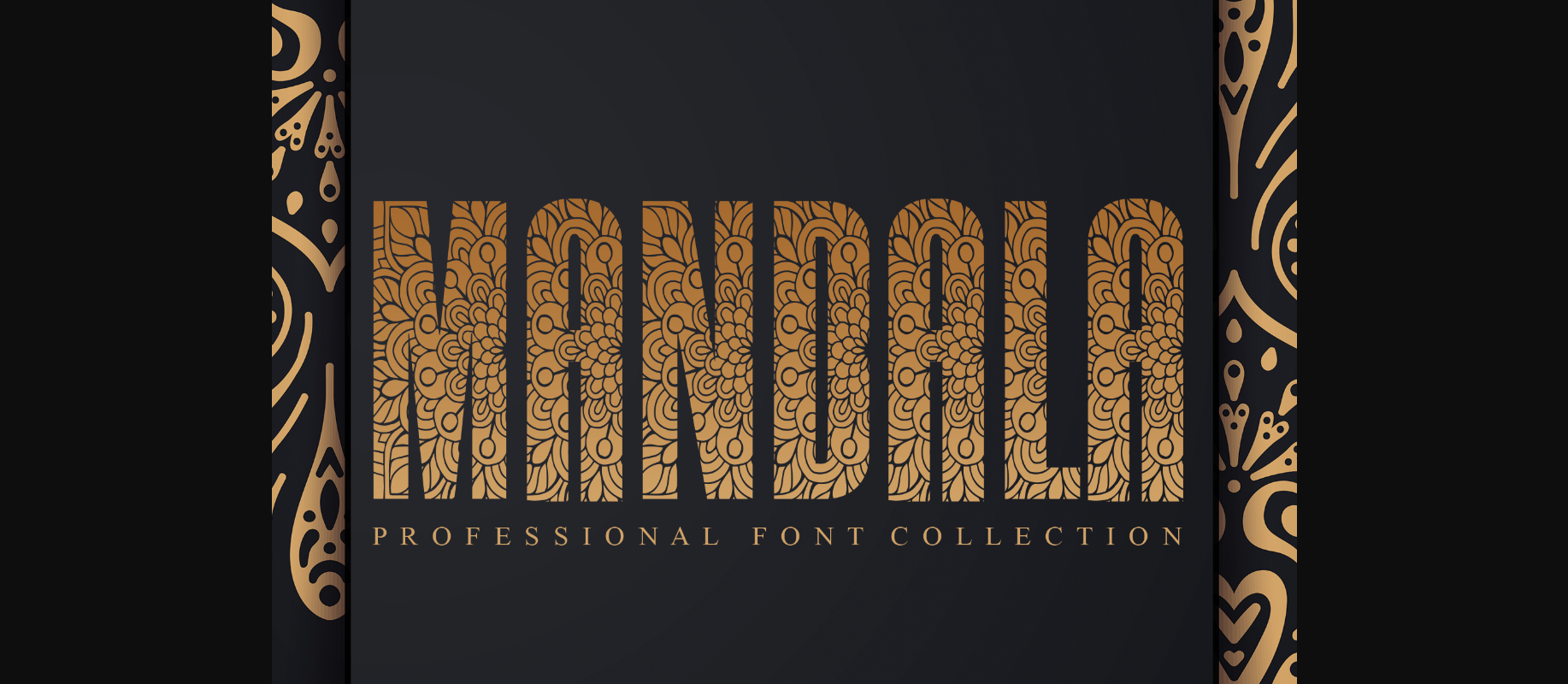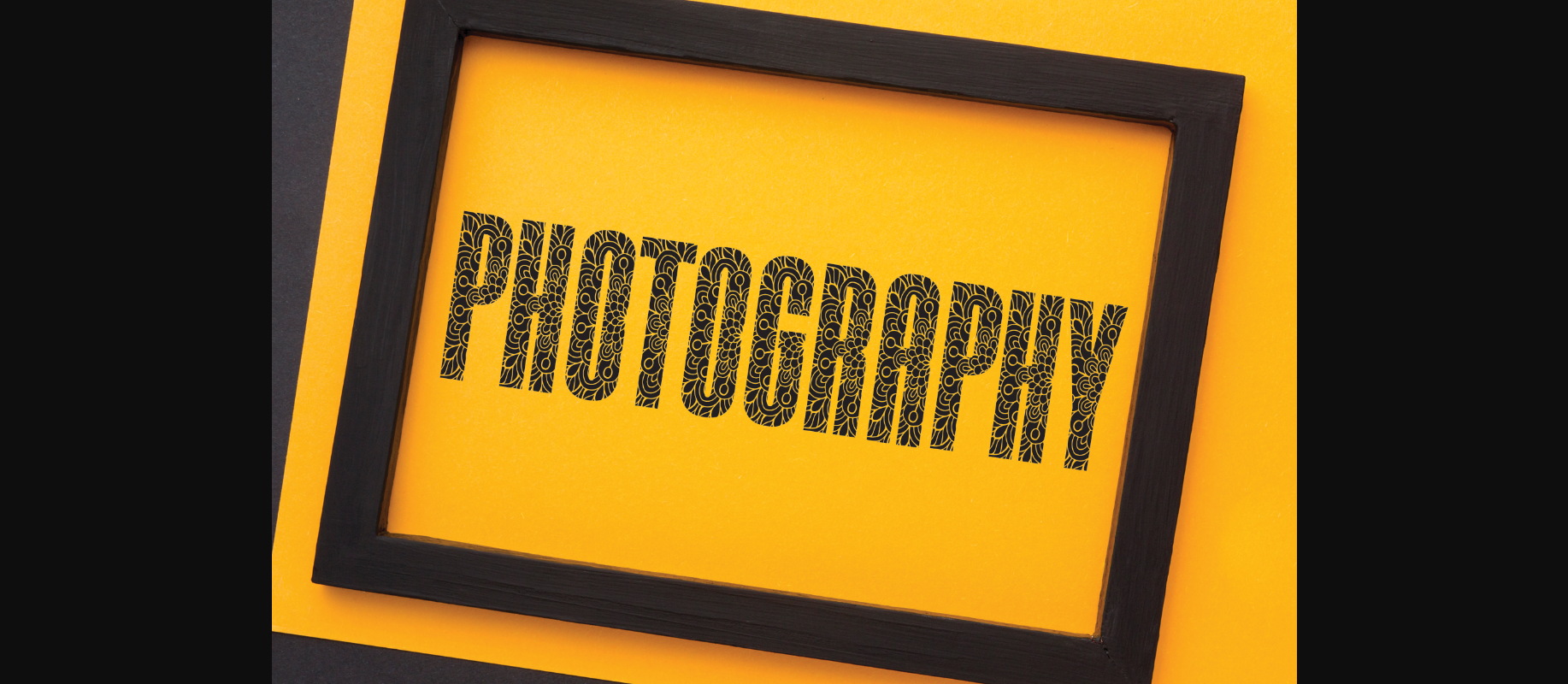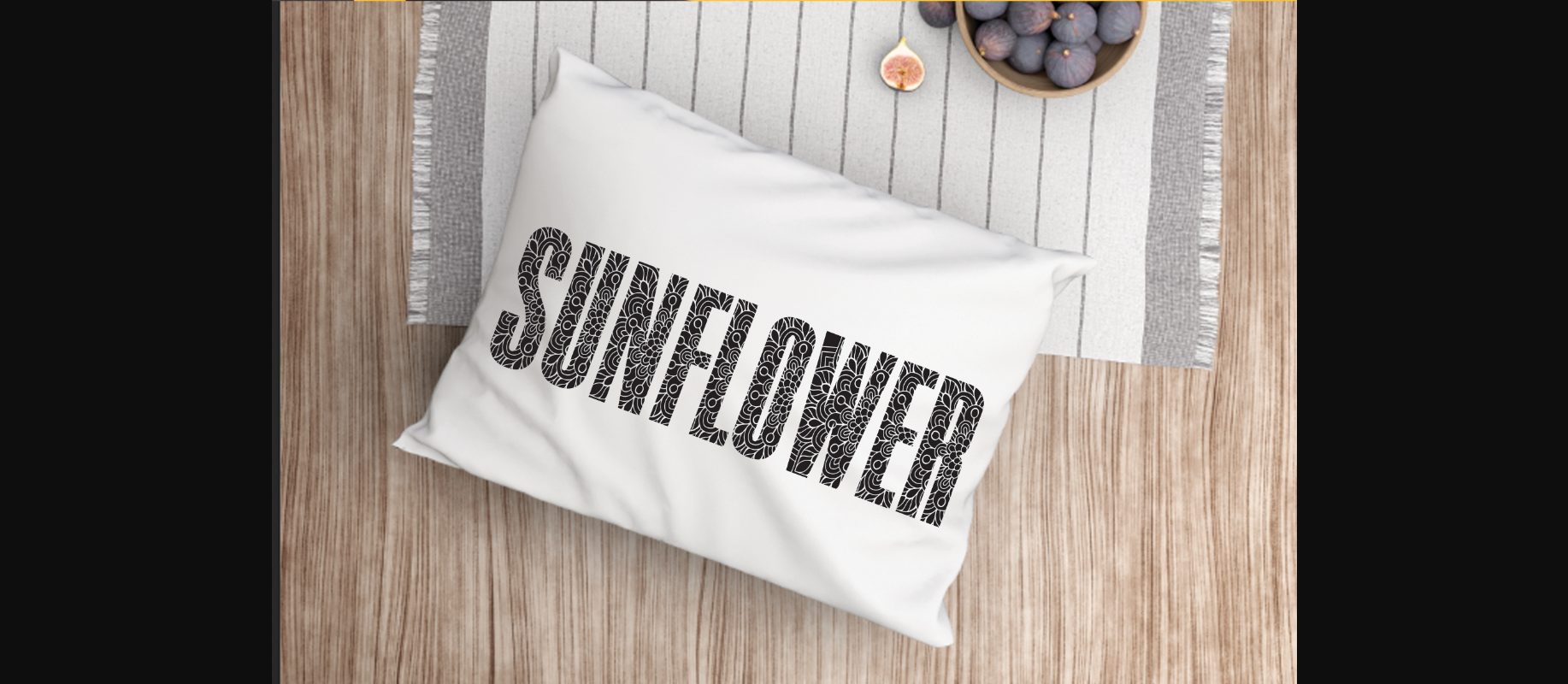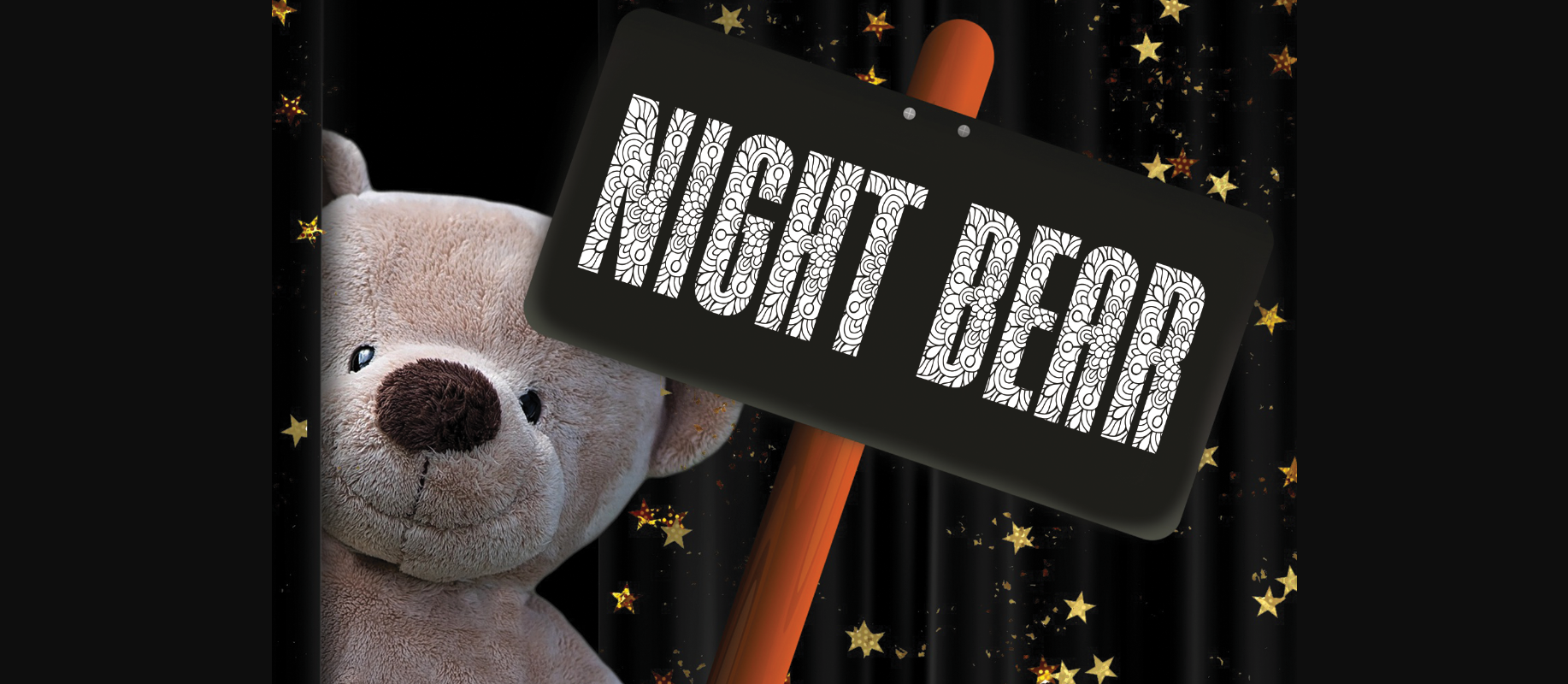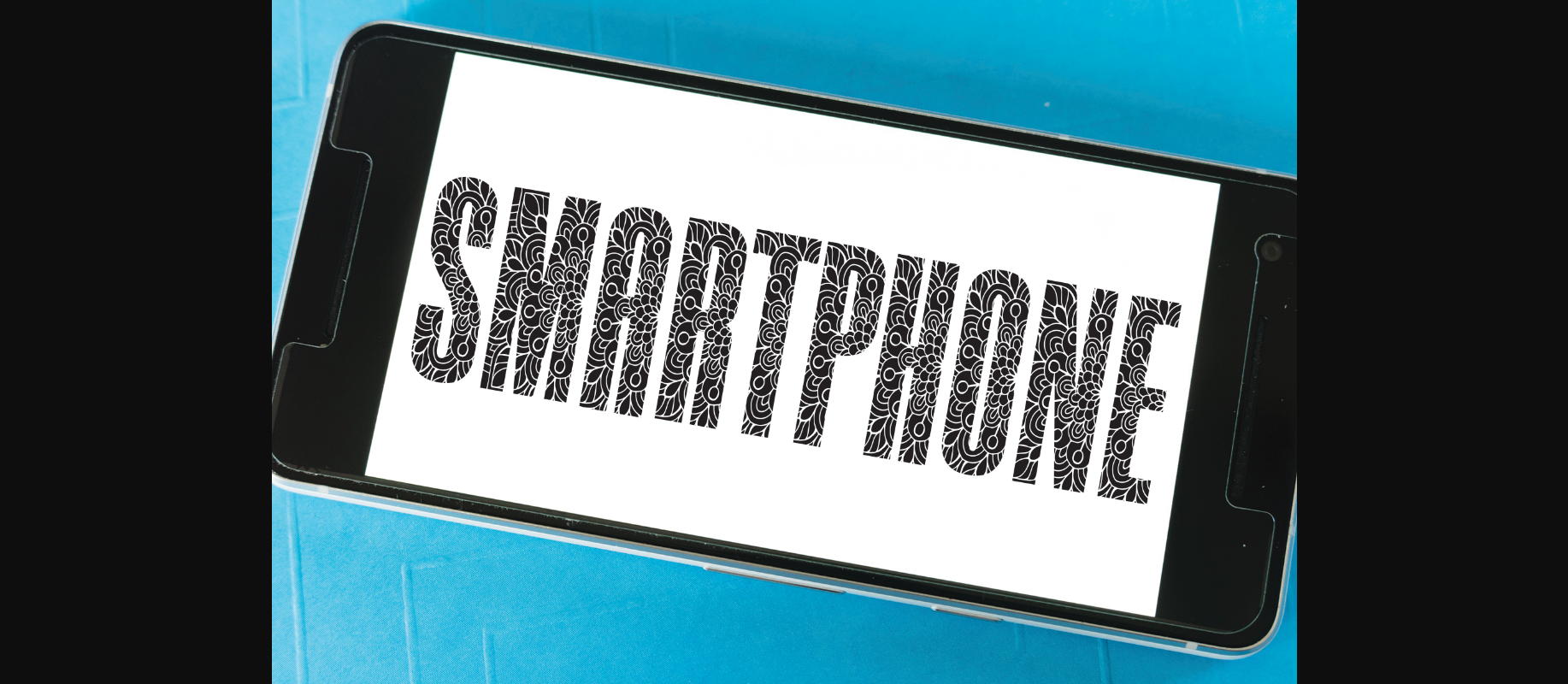
Mandala is an incredibly elegant and unique decorative font. No matter the topic, this font will be an incredible asset to your fonts’ library, as it has the potential to elevate any creation.